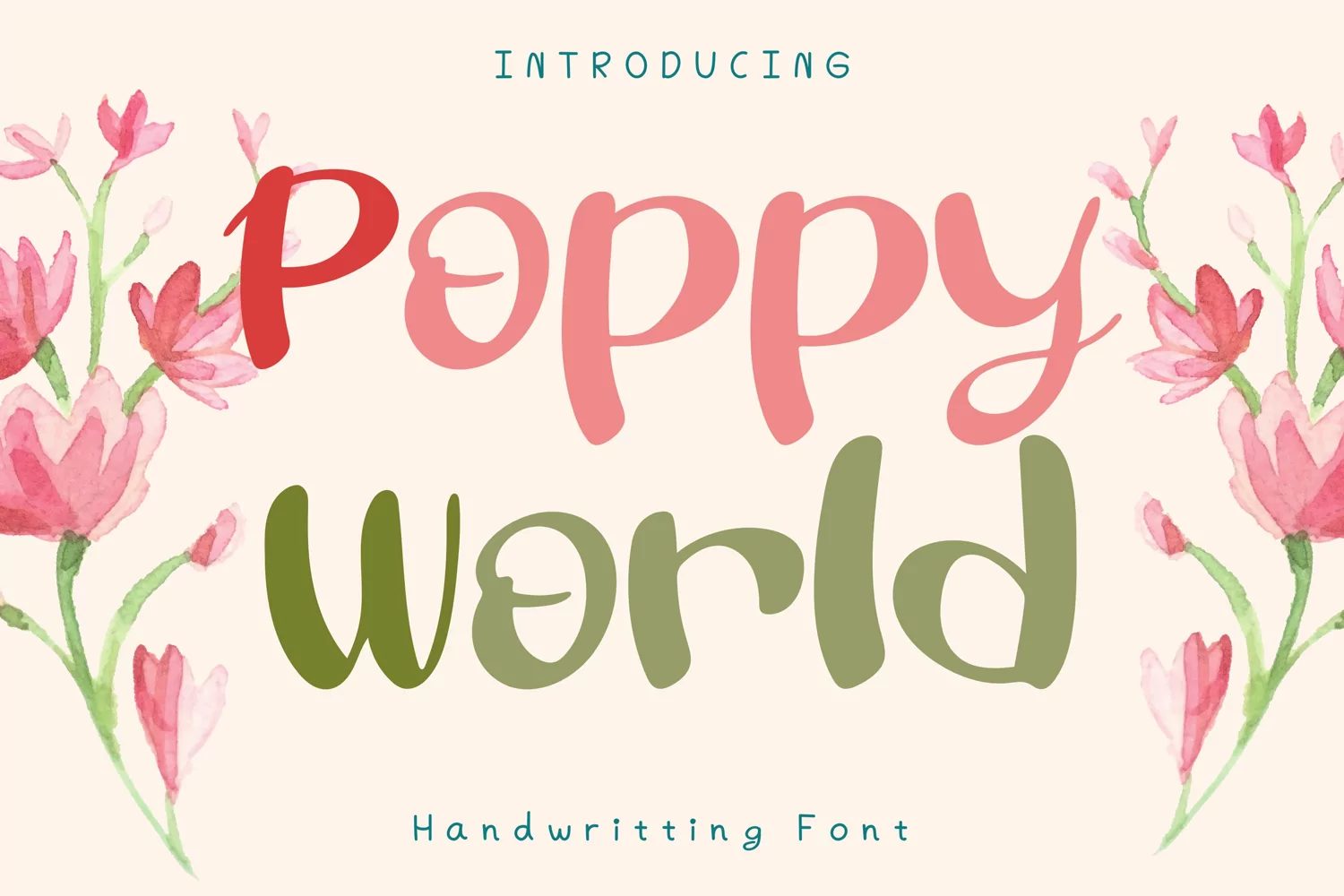
Poppy World Style
PoppyWorld
Poppy World Style is a whimsical and clean handwritten font. It can easily be matched to an incredibly large set of projects, so add it to your creative ideas and notice how it makes them stand out!